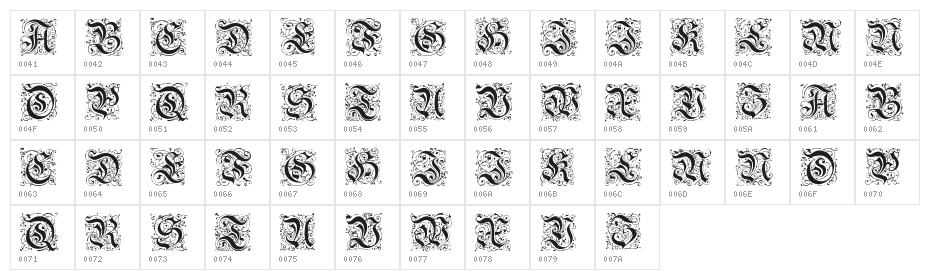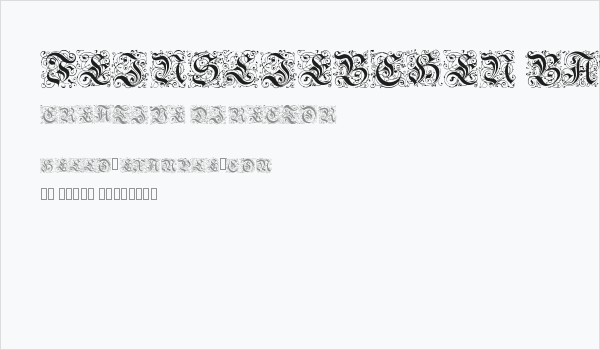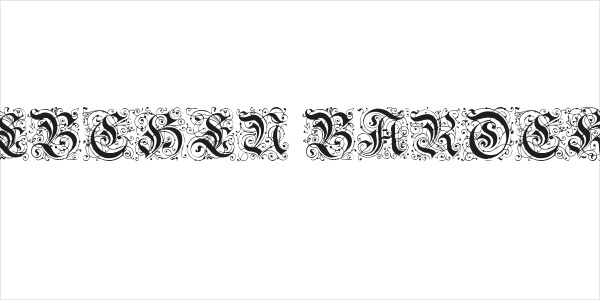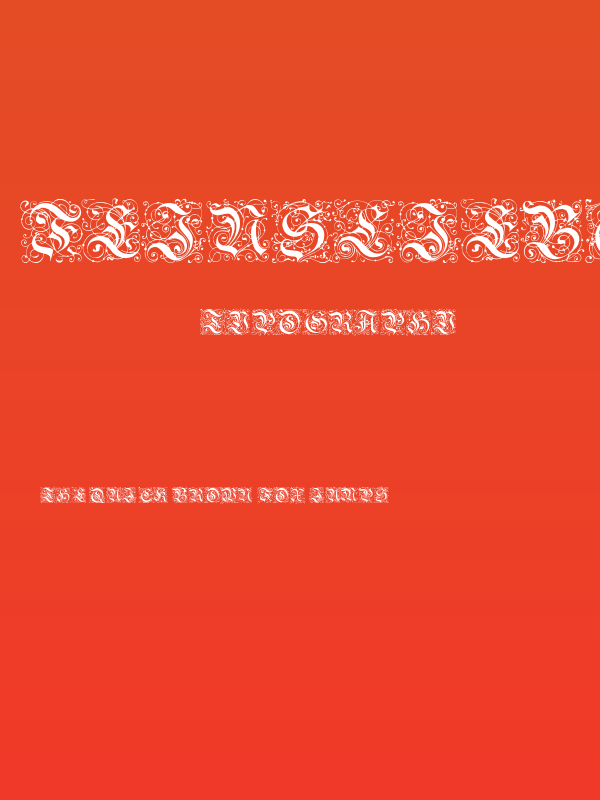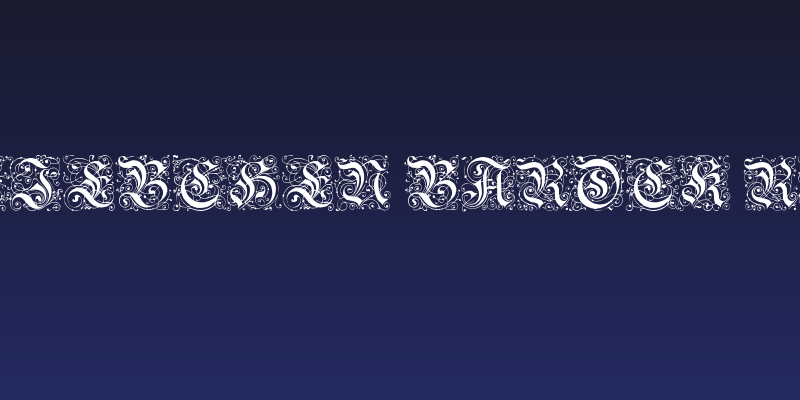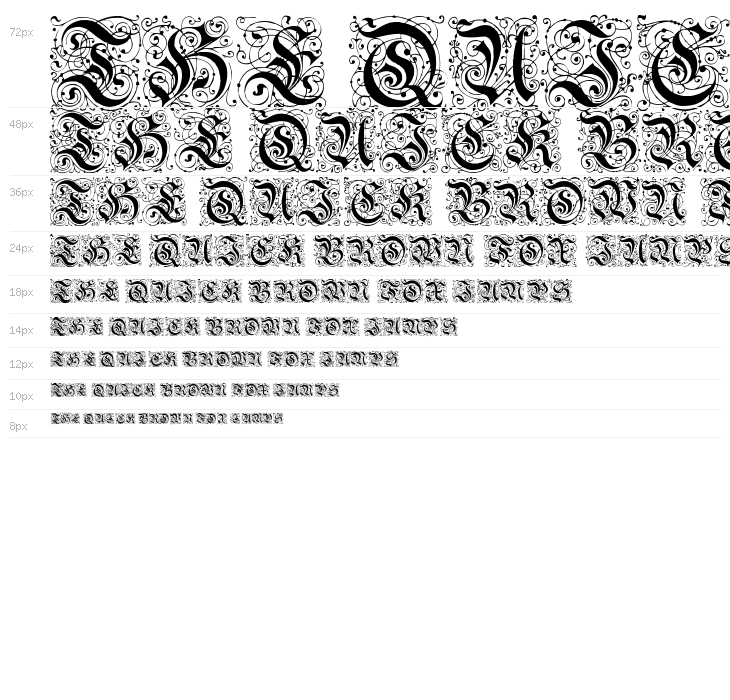
Feinsliebchen Barock Regular Font
Feinsliebchen Barock Regular Description
This font is an ornate and decorative typeface that features intricate flourishes and embellishments reminiscent of baroque art. Each letter is adorned with elaborate swirls and curls, creating a sense of elegance and grandeur. The characters are highly stylized, with a strong emphasis on decorative elements that make each letter a piece of art in itself. This font is not designed for readability in large blocks of text but rather for decorative purposes where visual impact is paramount. The overall appearance is both vintage and sophisticated, suitable for projects that require a touch of historical elegance.
| Use Case | Logos, Headlines |
| Proposed Projects | Ideal for wedding invitations, historical event posters, luxury branding, and decorative book covers. |